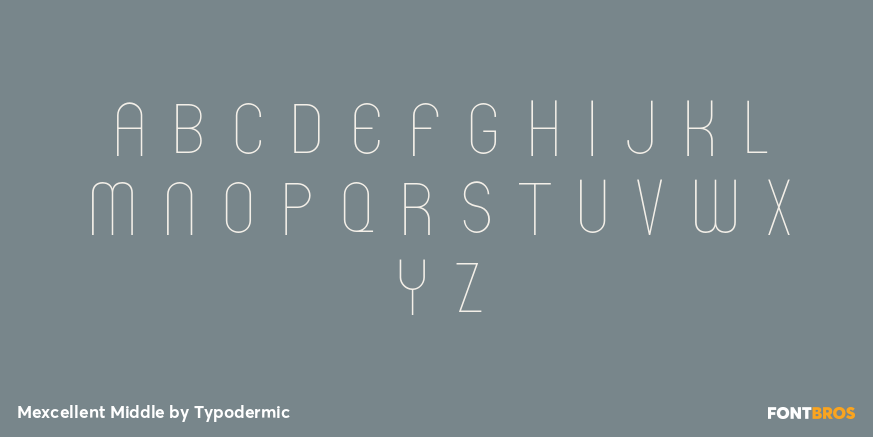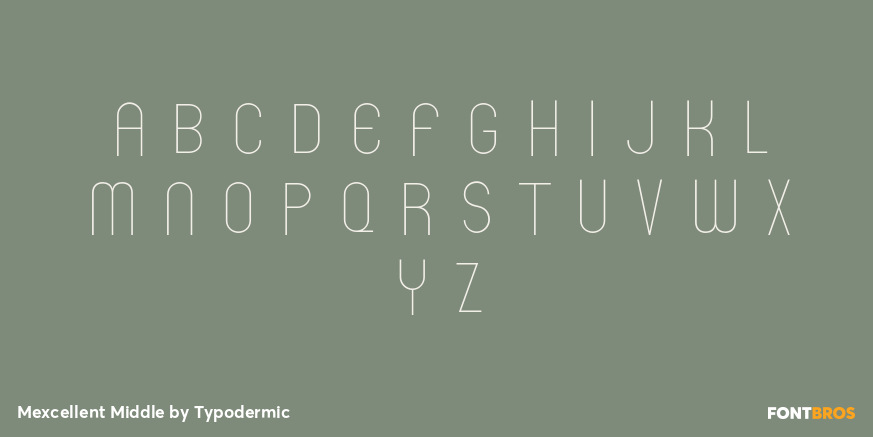
Mexcellent Middle
Mexcellent Middle contains only the single line that runs along the center of each character’s strokes. It registers exactly with Back and Outside: overlay all three for the complete trilinear lettering, place Middle over Back for a restrained inline accent, or animate and recolor it independently as the moving core of a title.
Use Middle as a contrasting team-color stripe in broadcast packages, matchup cards, footwear wordmarks, packaging, and event graphics, or assign it to foil, metallic ink, spot varnish, or illumination in a physical build. Although it can make spare monoline display lettering on its own, its main role is as a companion layer, so keep the text, size, and alignment identical across the stack and test the fine line at final scale.
Mexcellent Middle by Typodermic